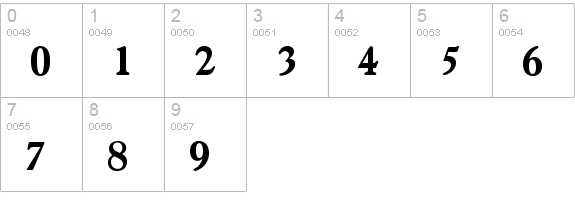
Gascogne-DemiBold is a sub-bold, structured variant in the Gascogne typeface family \xE2\x80\x94 well suited to sub-headlines and emphasised passages.
Gascogne-DemiBold font is a versatile and modern typeface that exudes confidence and sophistication. With its clean lines and bold presence, this font is perfect for a wide range of design projects, from branding to editorial design. The strong and sturdy letterforms make a powerful statement while maintaining a sense of elegance and professionalism. What sets Gascogne-DemiBold apart is not only its striking appearance but also its accessibility. This font is available for free download at FontsMarket.com, making it a valuable resource for designers and creatives looking to elevate their projects without breaking the bank. Whether you're working on a sleek logo, eye-catching poster, or stylish packaging, Gascogne-DemiBold will help you make a lasting impression with its strong yet refined aesthetic. Don't miss out on the opportunity to enhance your design work with Gascogne-DemiBold font, now freely available for download at FontsMarket.com.